Have you ever marveled at the elegance of classic typography? The charm of traditional serif fonts can evoke a sense of nostalgia and warmth. Whether you’re designing a heartfelt invitation or crafting a personal blog, choosing the right font is essential.
This collection highlights timeless serif fonts that blend readability with classic beauty. These fonts are perfect for everything from book covers to wedding stationery. They help convey your message with clarity and style, making your projects stand out. You’ll find inspiration for your next creative endeavor, no matter your skill level.
Prepare to discover a selection of serifs that whisper sophistication. From bold headlines to delicate body text, these fonts will elevate your work. Take a moment to explore and find the perfect match for your creative projects.
Libre Baskerville Font
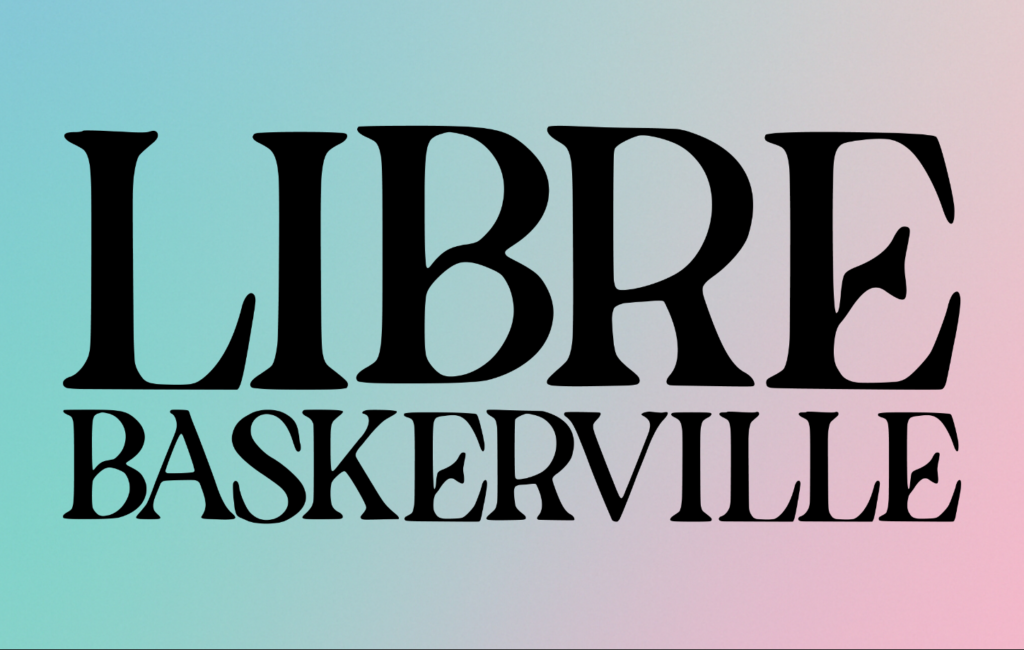
Libre Baskerville is a beautifully crafted serif font that radiates elegance and clarity. It’s ideal for a variety of creative projects like magazine covers, stylish t-shirts, or captivating social media posts. Imagine using it for a sophisticated wedding invitation, setting a romantic tone that guests will remember. With its timeless appeal, it effortlessly enhances any design, making your work shine with professionalism and charm.
Rusilla Serif Font
Rusilla Serif is a sophisticated typeface that brings an air of elegance to your designs. It works beautifully for invitations, logos, and magazine layouts, adding a touch of class to any project. Imagine using it for a wedding invitation, where its refined curves enhance the romantic feel of the occasion. This font makes it easy to create stunning visuals that capture attention and convey your message with style.
Thorin Font
Thorin is an elegant serif font that brings a delicate and classy touch to your designs. It’s ideal for wedding invitations, greeting cards, or any project where you want to convey sophistication. Imagine using it to create beautifully styled menus for a formal dinner party, adding a graceful flair to your table setting. Its balanced design makes it easy to incorporate into various creative works, ensuring your typography stands out with timeless elegance.
Brogade Font
Brogade is a charming retro serif typeface that adds elegance and character to any design. It’s ideal for creating branding, packaging, and editorial layouts that stand out with sophistication. Imagine designing a vintage-inspired café menu that warmly invites patrons to enjoy a cozy atmosphere. Its unique style makes it a delightful tool for any creative project, ensuring your typography captivates and engages audiences.
Cronde Font
Cronde is a luxurious serif font that combines modern elegance with artistic ligatures. It’s ideal for creating stunning branding materials, from fashion logos to upscale jewelry packaging. Imagine designing a chic wedding invitation that captures a timeless feel, using Cronde’s graceful swashes to highlight the couple’s names. This font enhances any project with its distinctive style, ensuring your designs stand out beautifully in both print and digital formats.
Abind Font
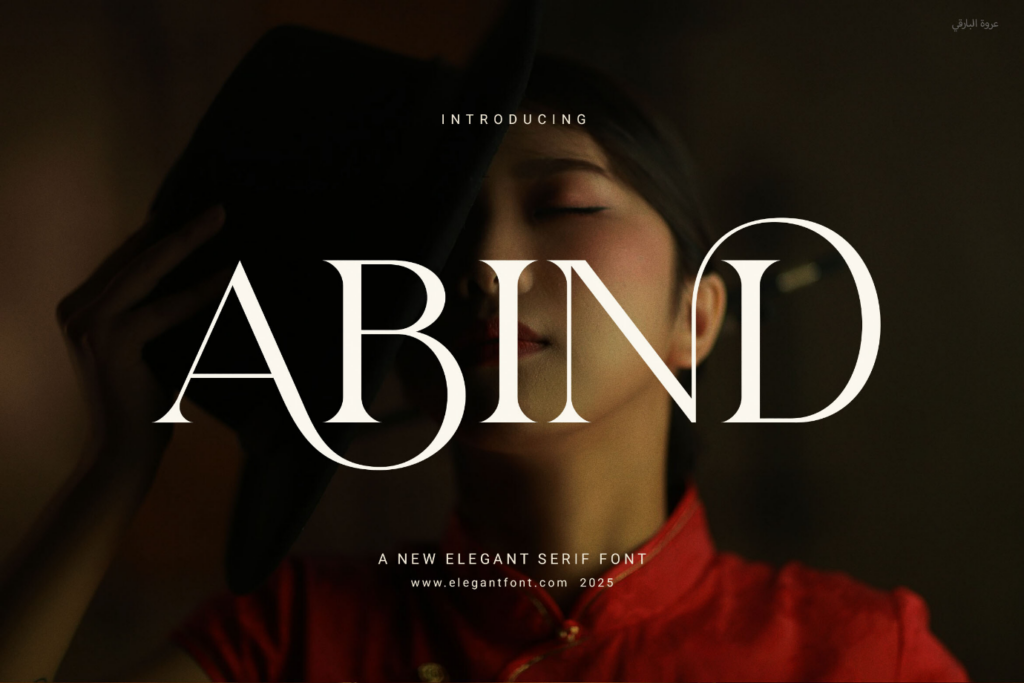
Abind Elegant Serif Font brings a sophisticated touch to your typography with its graceful curves. It’s ideal for crafting logos, elegant invitations, and stylish packaging that capture attention. Imagine designing a chic fashion lookbook that highlights your brand’s unique identity and aesthetic. This versatile font enhances readability while adding a refined flair, ensuring your projects resonate across both print and digital media.
Begad Font
Begad is a decorative serif typeface that brings vintage charm to your designs. It shines in projects like logos, posters, and packaging, adding a distinctive flair. Imagine using it for a retro-inspired coffee shop menu or a classic event invitation to create a warm, inviting atmosphere. Its elegant details and bold character make it a fantastic tool for elevating your creative work effortlessly.
Gathero Font
Gathero is a striking serif typeface that embodies confidence and elegance. It’s ideal for creating eye-catching headlines, luxurious branding, and polished editorial layouts that leave a lasting impression. Imagine using it for a fashion magazine cover, where its tall letterforms and stylish ligatures draw readers in at first glance. With features like multilingual support and easy access to decorative elements, it simplifies the creative process while adding a touch of sophistication to any project.
Manolisa Font
Manolisa is a modern serif typeface that embodies elegance and artistic expression. It’s ideal for creating luxurious editorial layouts, boutique branding, and high-end cosmetic packaging. Consider using it for eye-catching headlines that showcase its beautiful swashes and intricate ligatures. Its blend of classic and contemporary design makes it a versatile asset for any elegant creative project.
Conclusion
In exploring these classic serif fonts, you’ve discovered timeless options that enhance readability. Whether for elegant invitations, captivating book covers, or polished branding, each font brings a sense of tradition and sophistication to your projects. As you dive into your next creative venture, consider how these fonts can elevate your work. What stories will they help you tell? Embrace the beauty of tradition and let your imagination flourish!